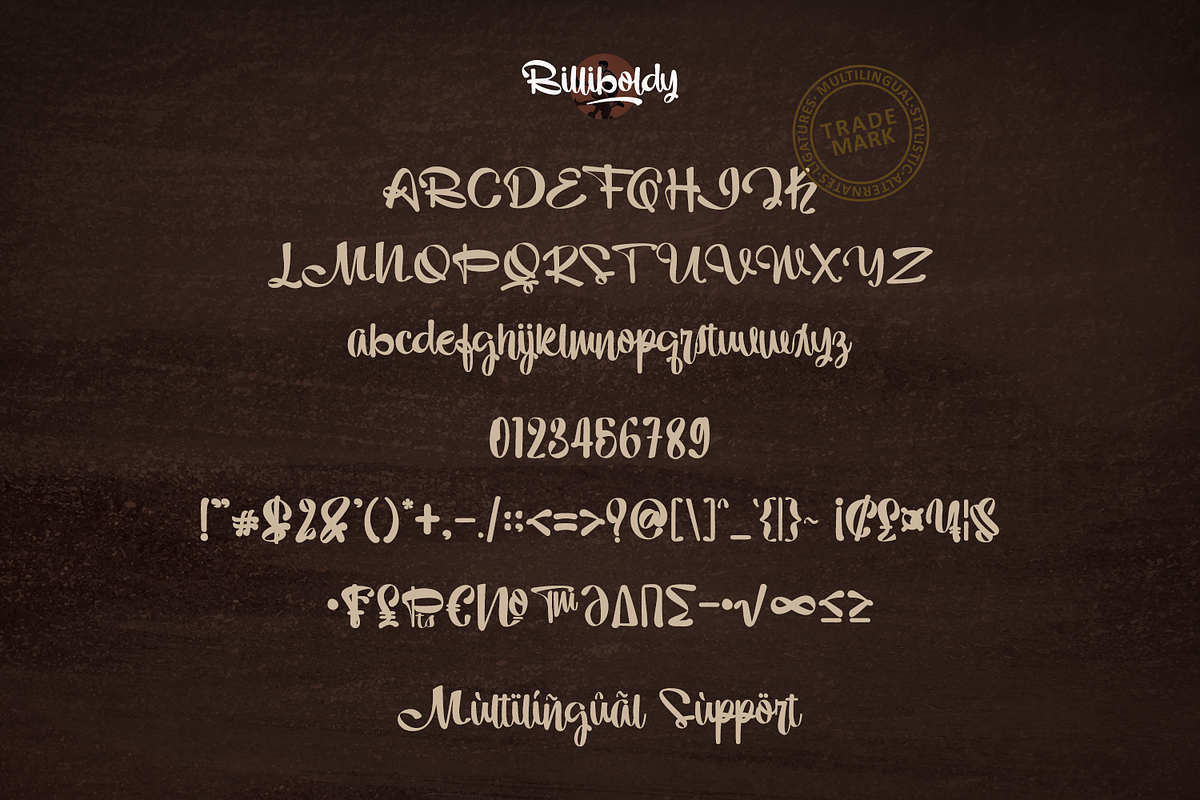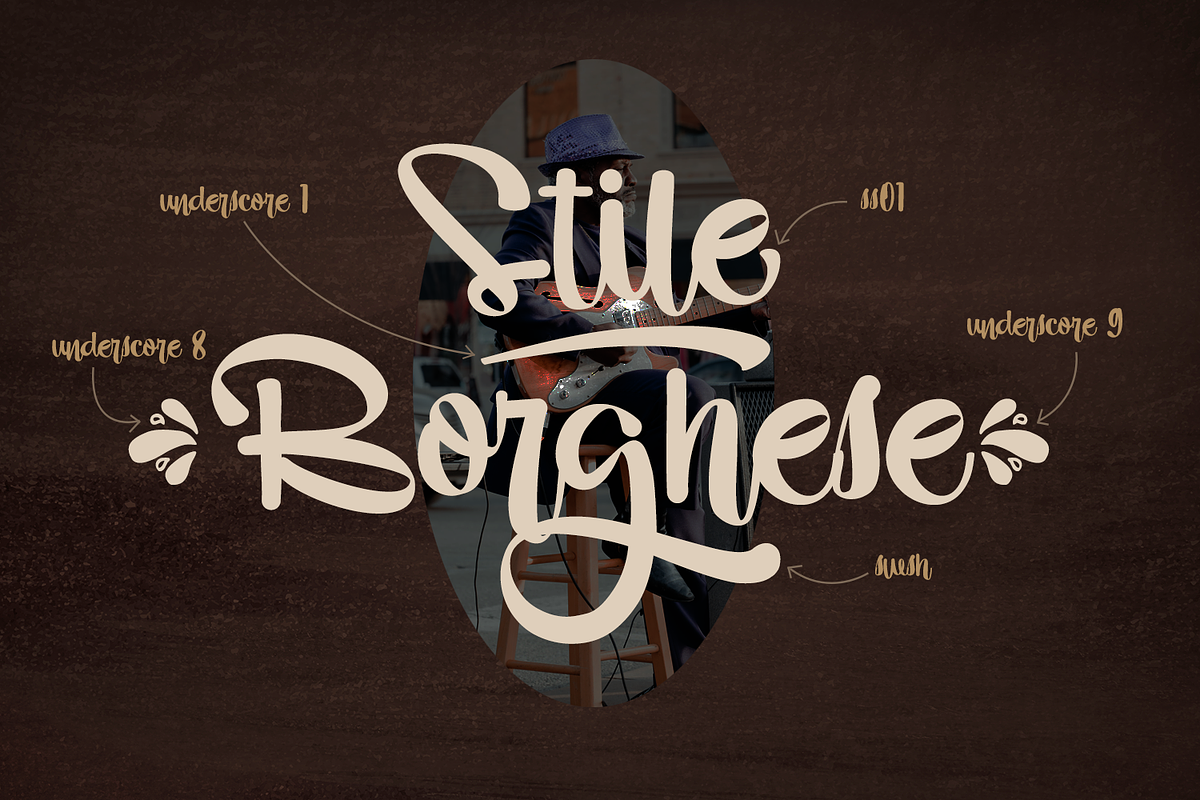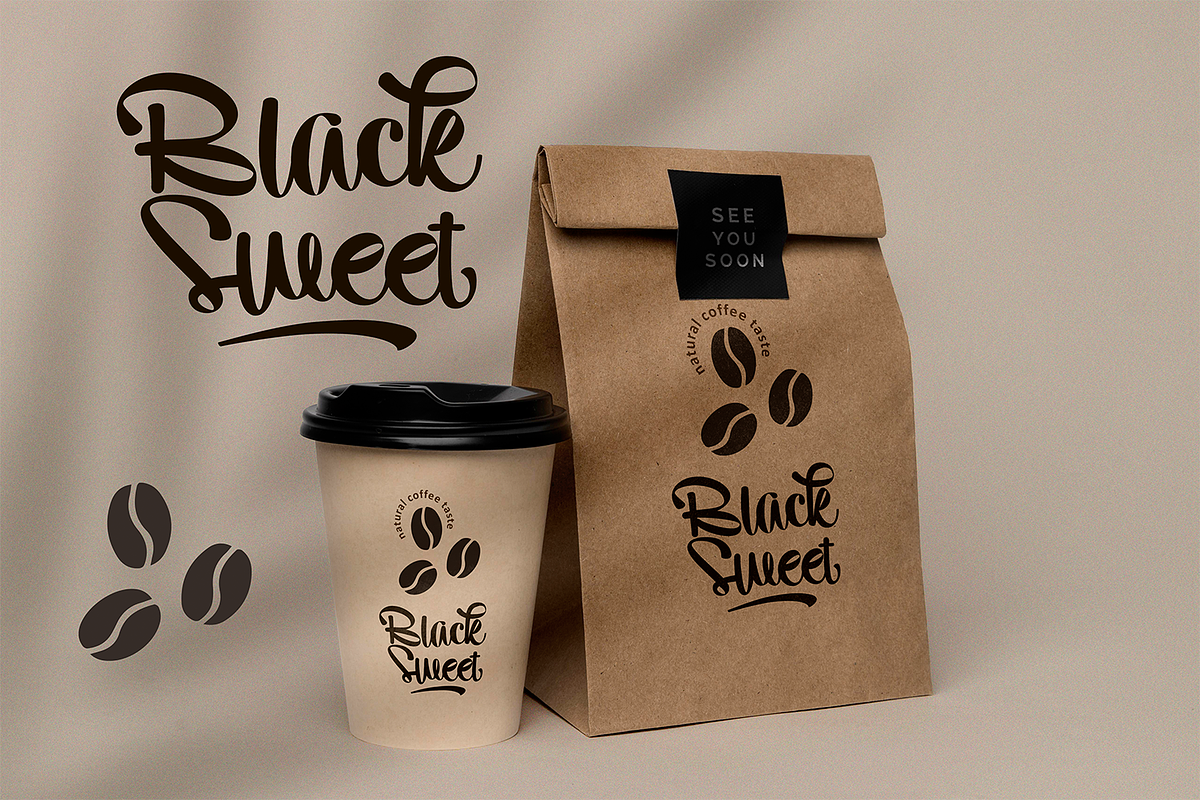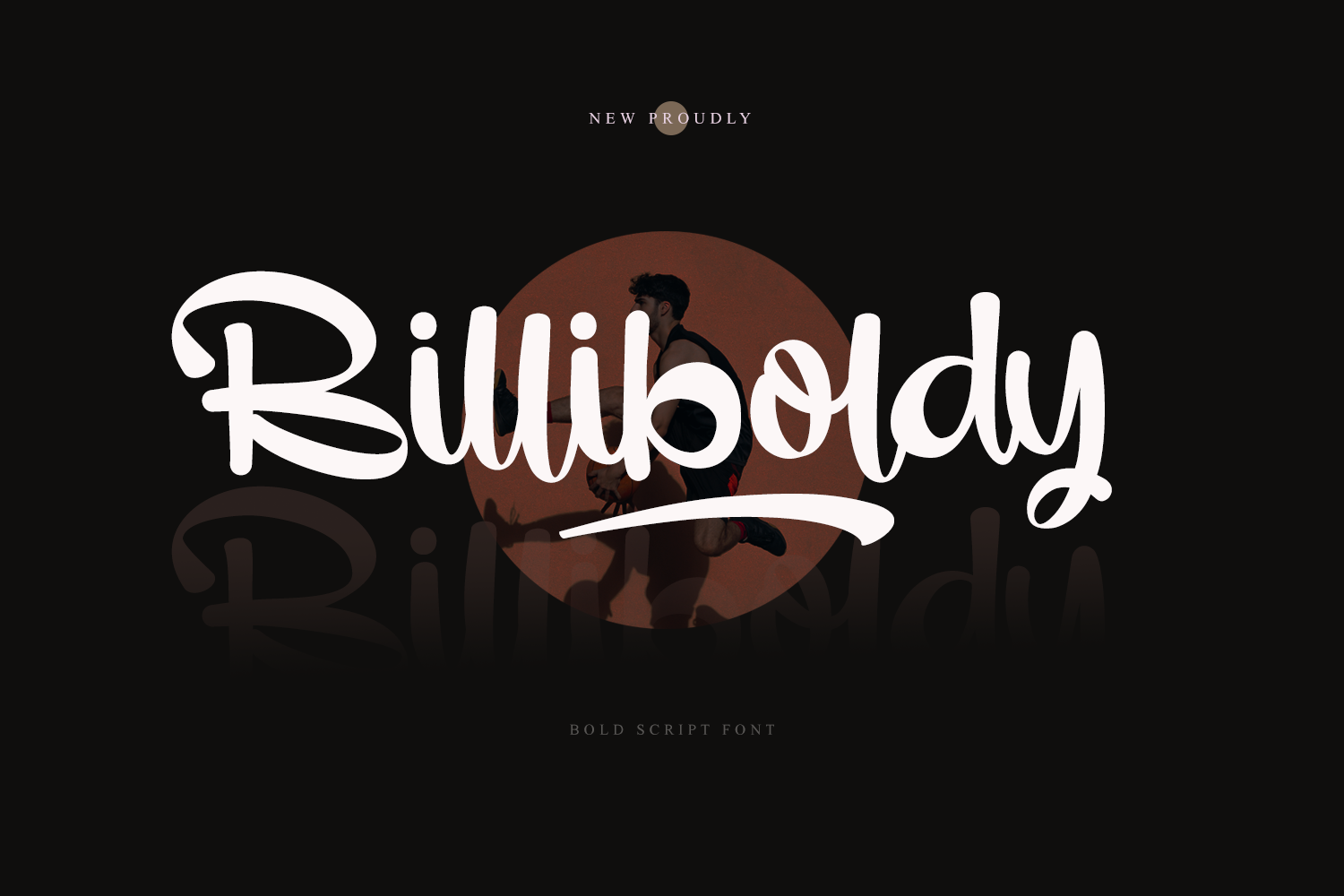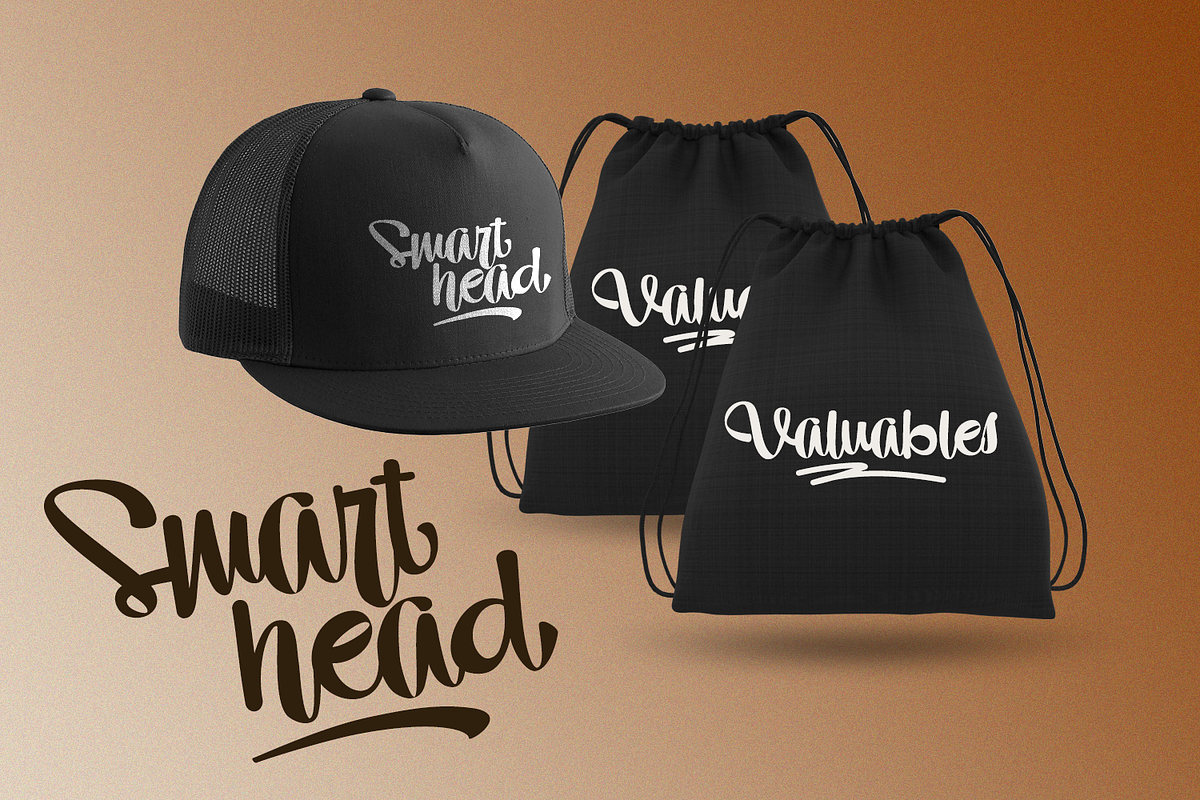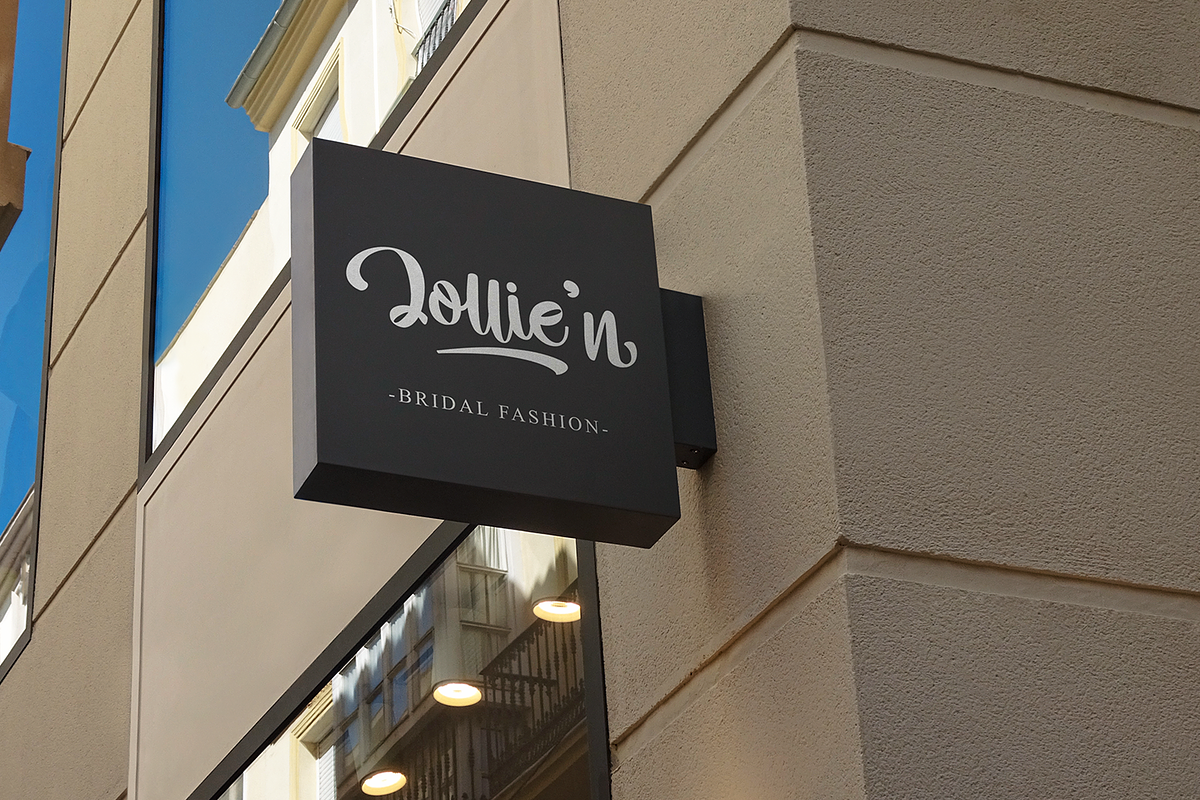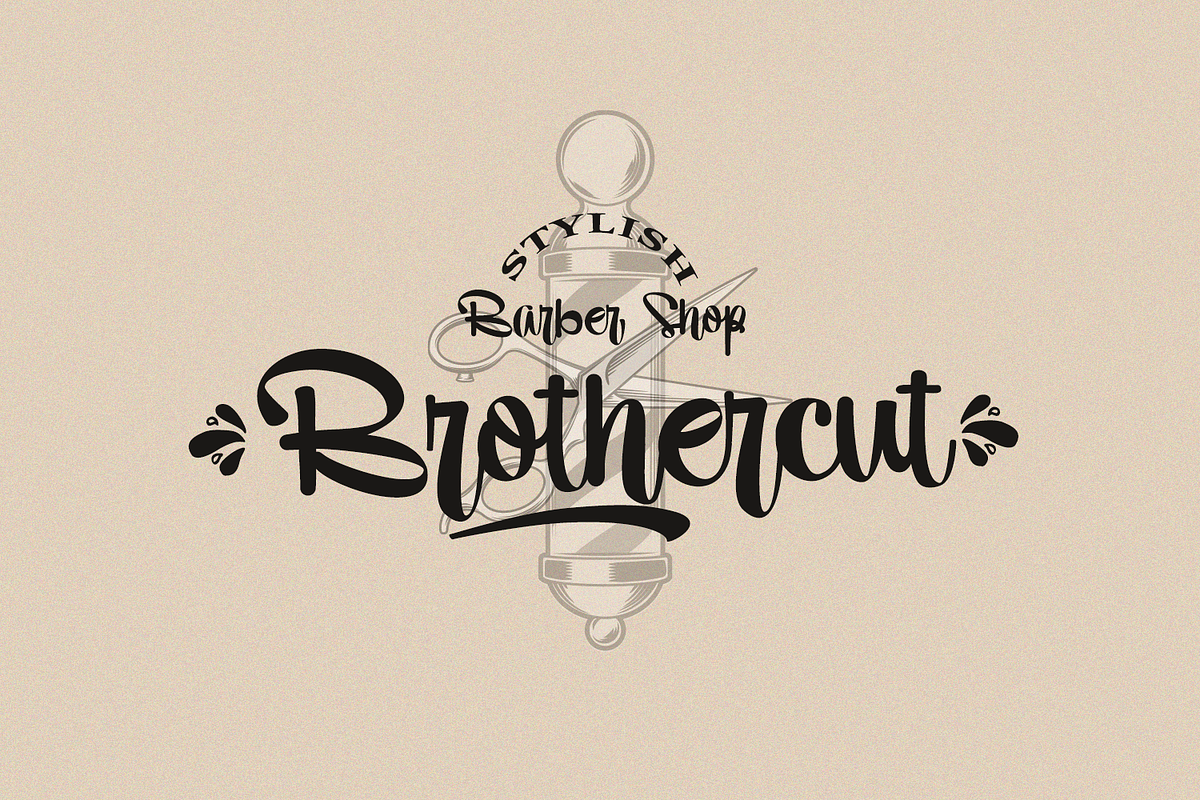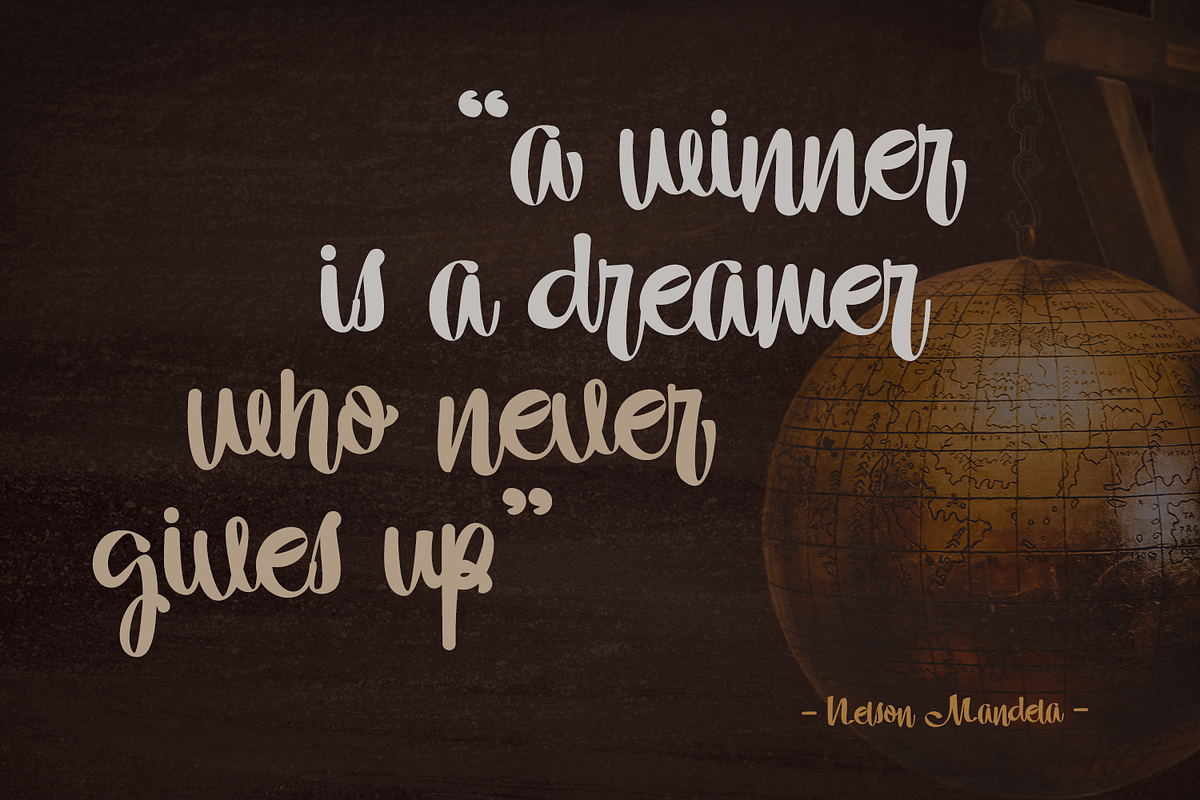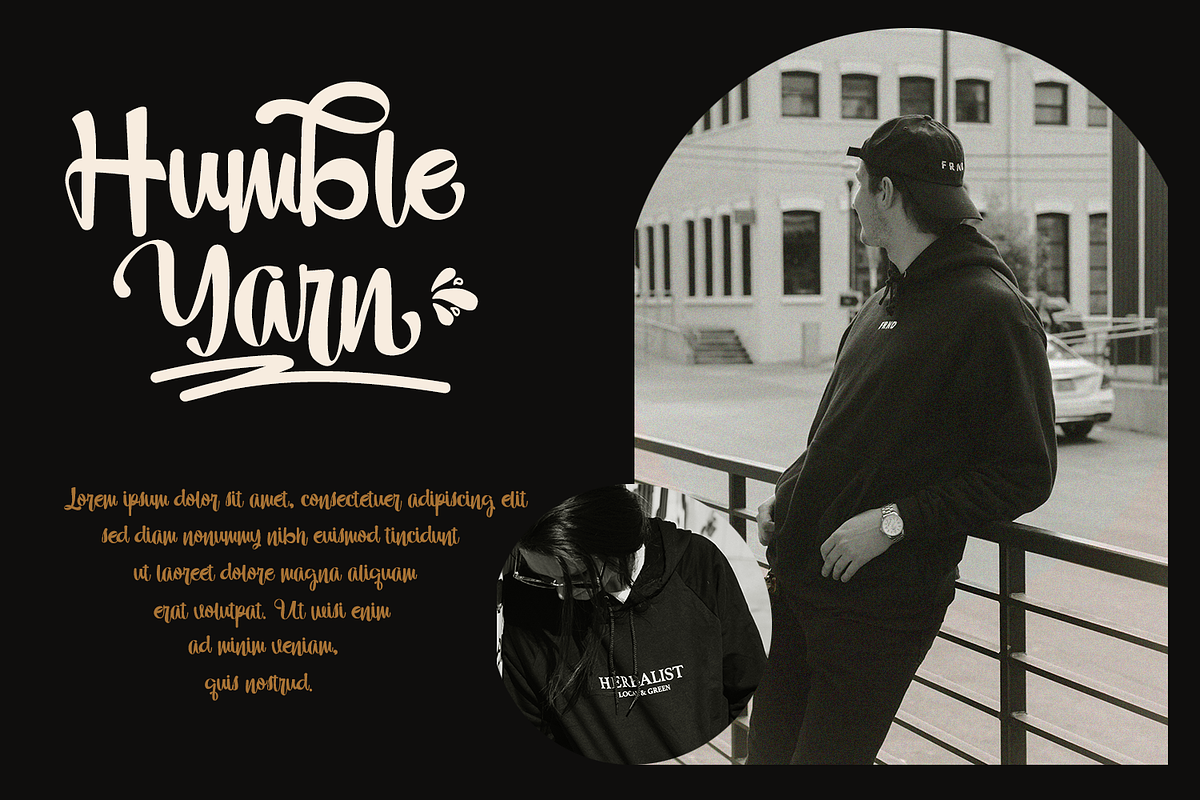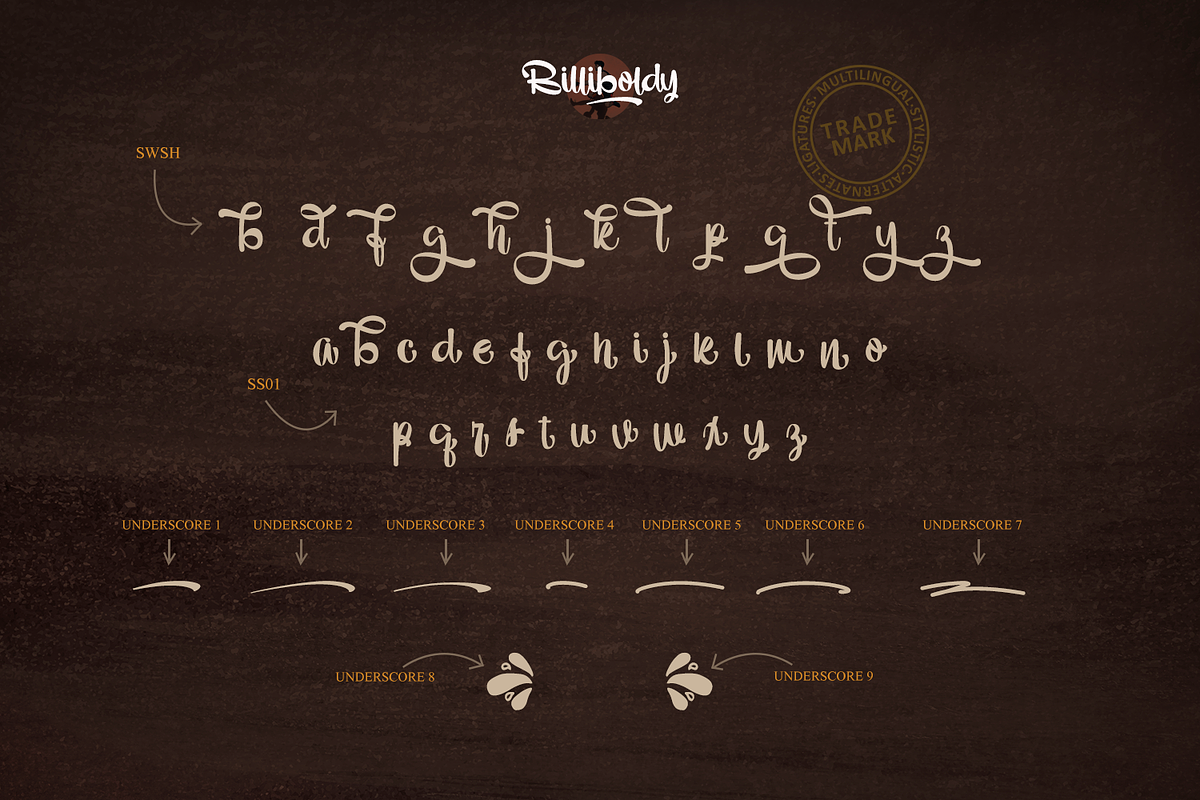
Billiboldy // Sweet Bold Typeface
Find success by making your business product design look charming by giving it a touch of modern and unique writing!
Billiboldy is a cursive and thick lettered handwritten bold script font, crafted to give your headlines and logotype projects a stylish touch. This font reads as strong, dynamic and can add tons of nostalgic character to your designs.
This font includes Multilingual for 91 Country to make your branding globally acceptable.
- Stylistic Sets
- Special underscore character 7 style
- Special doodles for front and back of letters or sentences